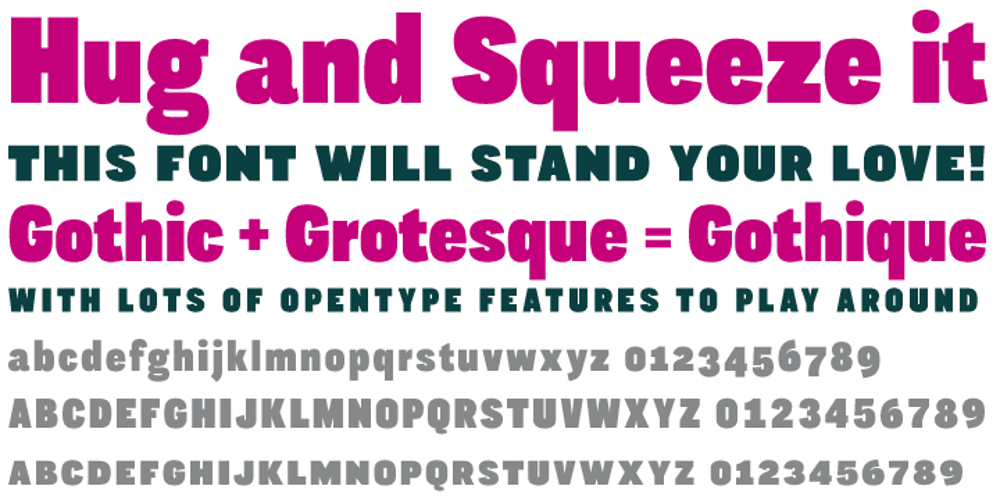
CA Gothique Superfat Font Family was designed by Stefan Claudius and published by Cape Arcona Type Foundry. CA Gothique Superfat contains 1 styles and family package options. The name says it all. It is aesthetically located between American Gothics and European Grotesques and features small caps, a Central European character set and four number formats plus small caps numerals. This makes it not only a heartbreaking headline font, but also extremely versatile.